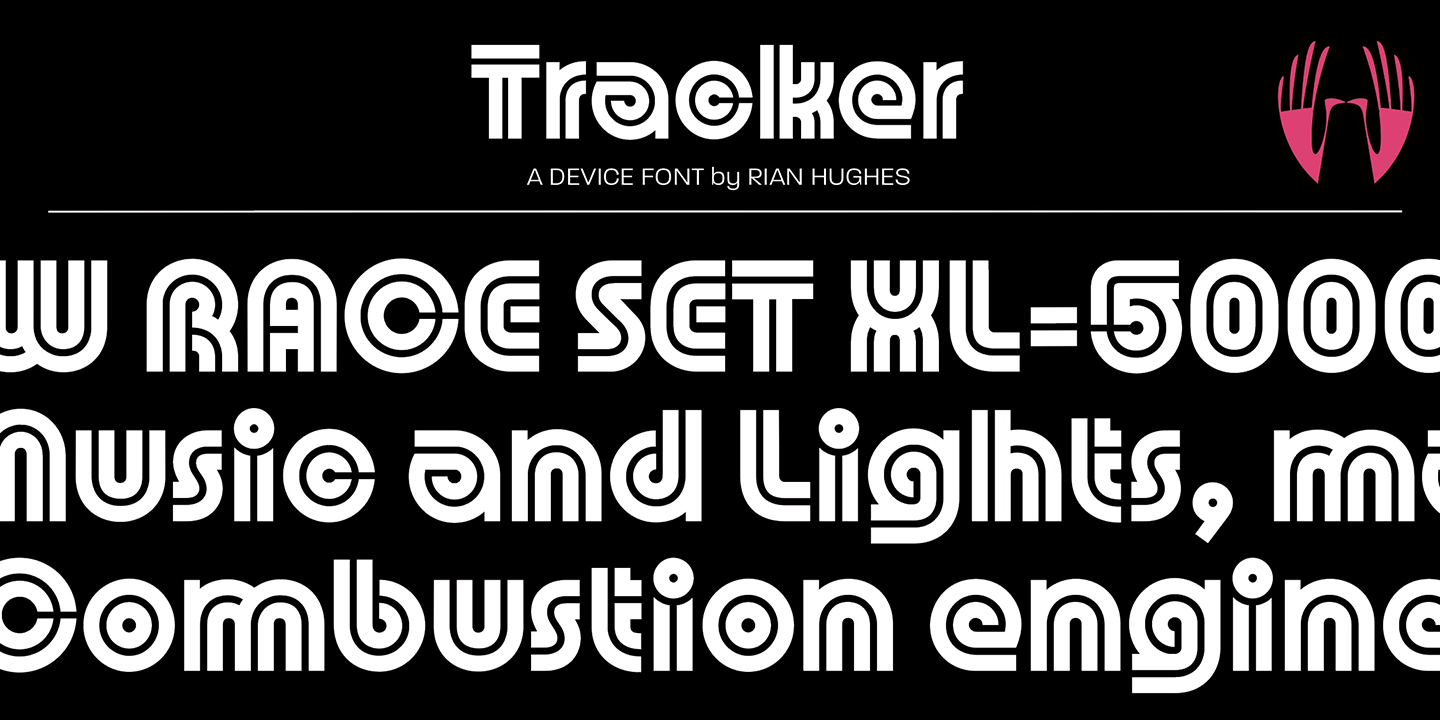
The Tracker Font is perfect for outdoor adventure branding, hunting and fishing logos, wilderness guide services, camping equipment graphics, survival training materials, outdoor gear packaging, trail signage systems, wildlife conservation posters, and rugged outdoor lifestyle marketing.
What makes the Tracker Font so exciting is its rugged outdoor authenticity that instantly captures the adventurous spirit and wilderness expertise of true outdoor enthusiasts. This commanding typeface embodies the self-reliant determination and natural instincts that define experienced outdoorsmen, creating an immediate impression of competence and wilderness mastery. The font's tracking character communicates the precision and reliability that outdoor adventure businesses need to attract customers who demand authentic wilderness experiences and proven outdoor expertise from their gear and guide services.
The Tracker Font family includes Regular weight with complete uppercase and lowercase alphabets, comprehensive numerical sets, essential punctuation marks, and outdoor symbols that maintain the wilderness aesthetic throughout your adventure and outdoor recreation design projects.
Outdoor adventure companies and wilderness organizations consistently select Tracker Font Free Download for projects that require authentic outdoor appeal and reliable wilderness communication. This exceptional typeface excels in environments where establishing credibility and outdoor expertise is crucial for attracting serious adventurers and outdoor enthusiasts who value genuine wilderness knowledge. The font's rugged character helps communicate the competence and reliability that outdoor customers expect from established adventure outfitters and wilderness service providers.
The distinctive qualities of Tracker Font reflect the time-tested traditions of wilderness survival where tracking skills, outdoor knowledge, and natural instincts determine success in challenging outdoor environments. Each character demonstrates the focused attention and systematic approach that characterizes experienced hunters, trackers, and wilderness guides. The font's proportions and spacing create perfect balance between outdoor authority and practical readability that modern adventure businesses require for effective customer communication and safety messaging.
Contemporary outdoor enterprises appreciate how Tracker Font communicates wilderness expertise and adventure authenticity. Whether designing materials for hunting outfitters, creating branding for wilderness survival schools, or developing marketing for outdoor equipment retailers, this font delivers the genuine character that distinguishes experienced outdoor professionals from inexperienced weekend warriors. The typeface works exceptionally well for businesses emphasizing outdoor skills, wilderness safety, and proven adventure leadership.
The versatility of Tracker Font extends across multiple outdoor applications and adventure tourism initiatives. National parks utilize its wilderness character for trail information and wildlife education materials. Outdoor training institutes choose it to communicate their expertise in survival skills and wilderness preparedness. Adventure tourism companies rely on its authentic appearance to market genuine wilderness experiences and professional guide services.
Digital outdoor platforms benefit from Tracker Font's optimized performance across various adventure applications and wilderness communication channels. The font maintains its rugged character whether displayed on outdoor websites, mobile adventure apps, or digital trail maps. This technical reliability ensures consistent brand presentation across all outdoor communication platforms and wilderness adventure engagement scenarios.
The psychological impact of Tracker Font resonates with audiences who seek authentic outdoor experiences and value wilderness competence in their adventure providers. The typeface serves as a visual guarantee of outdoor expertise and wilderness reliability that helps adventure businesses build lasting relationships with serious outdoor enthusiasts and nature lovers. This connection to wilderness mastery and outdoor authenticity makes it invaluable for establishing credible outdoor adventure brand identities.
Outdoor marketing specialists and wilderness design professionals recognize Tracker Font as an essential tool for authentic adventure branding. The font captures the essence of wilderness expertise while making outdoor authenticity accessible to contemporary adventure businesses who want to communicate their commitment to genuine outdoor experiences, wilderness safety, and proven adventure leadership in today's competitive outdoor recreation marketplace.